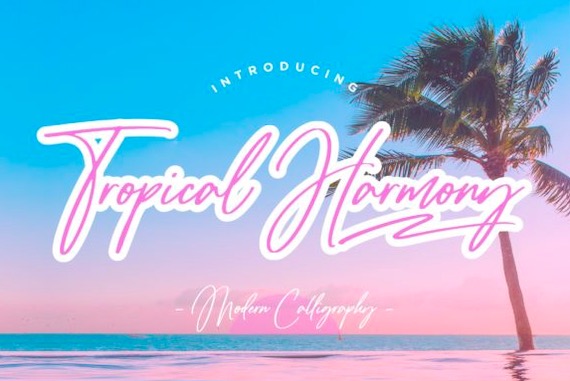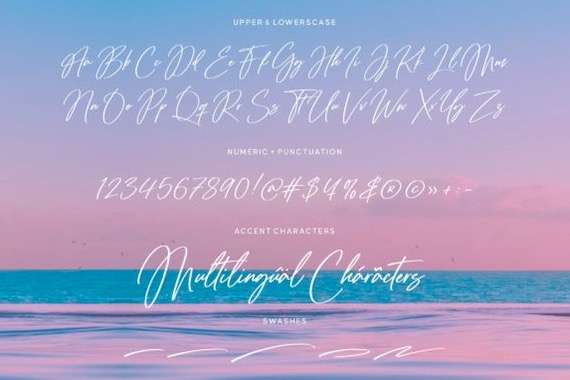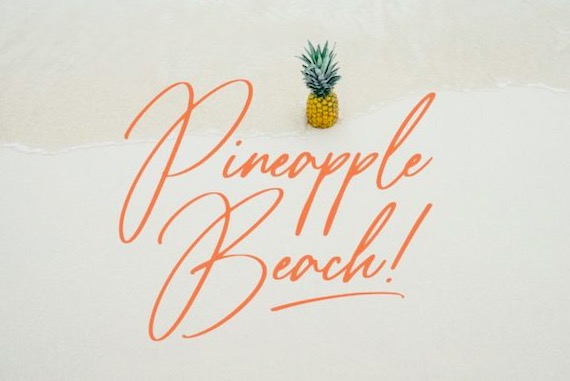
Tropical Harmony is a new fresh handwritten Script Font that is an enchanting handwritten font look. It was created and shared by Balpirick Studio along with a wide spectrum of applications ranging from greeting cards to headlines and is guaranteed to add a romantic feel to your next project.
Tropical Harmony Handwritten Font